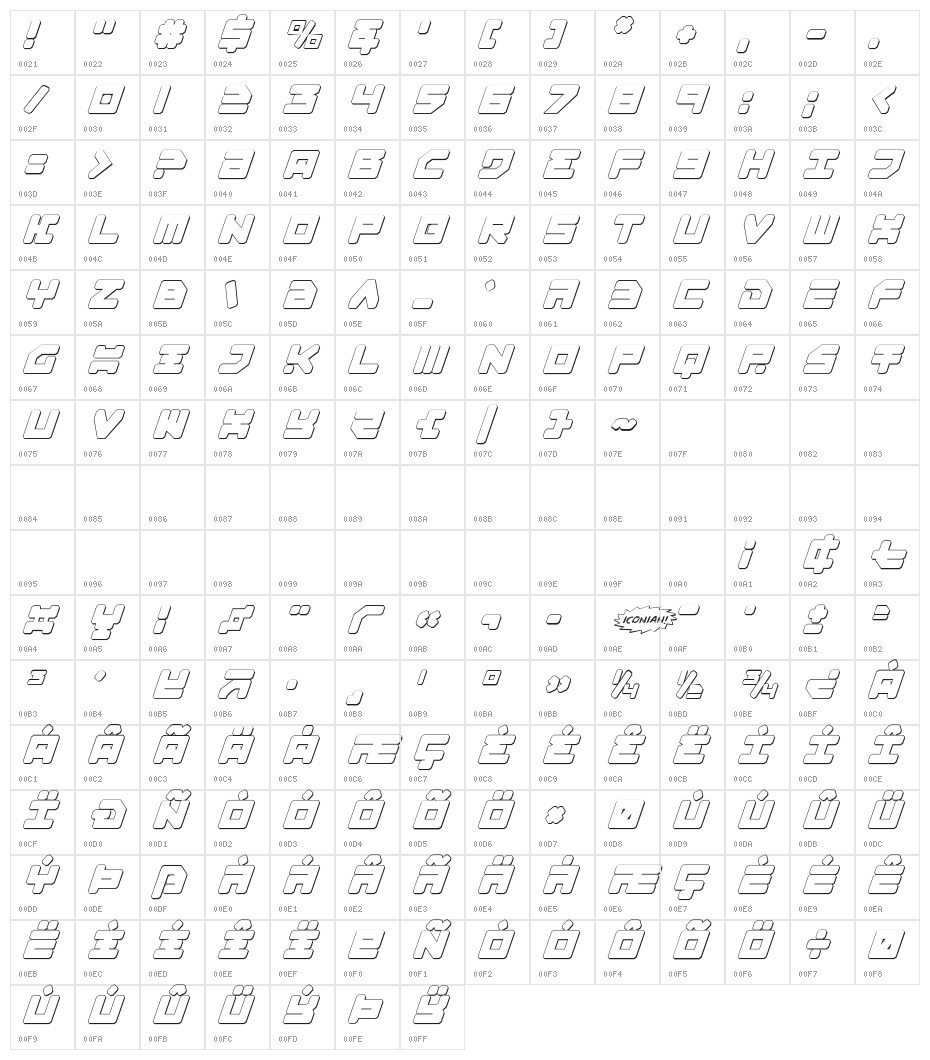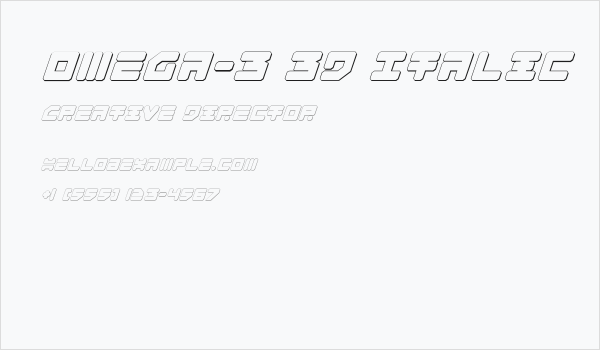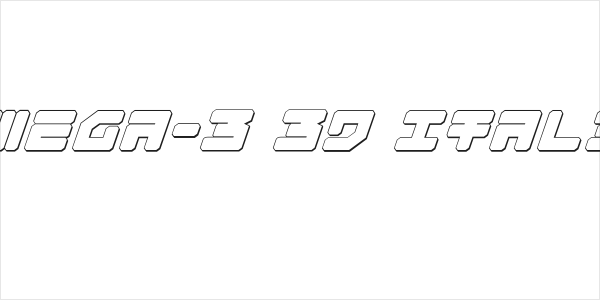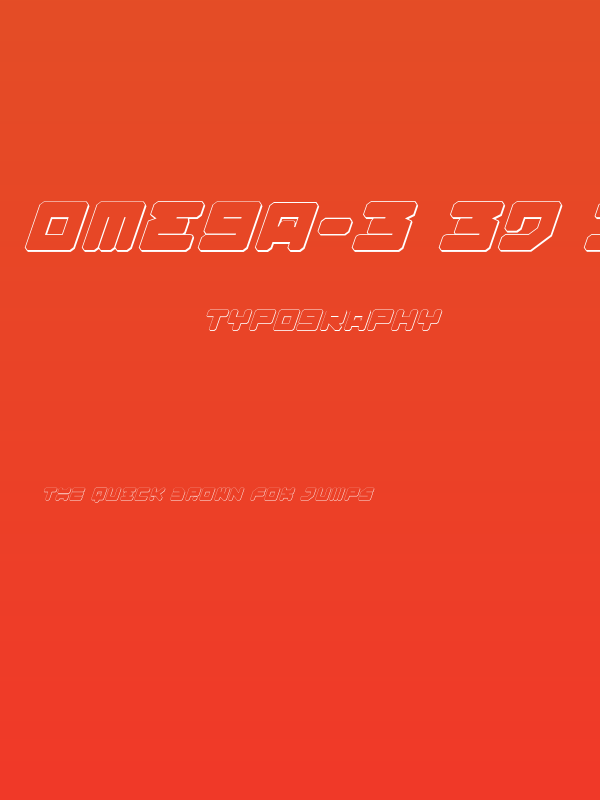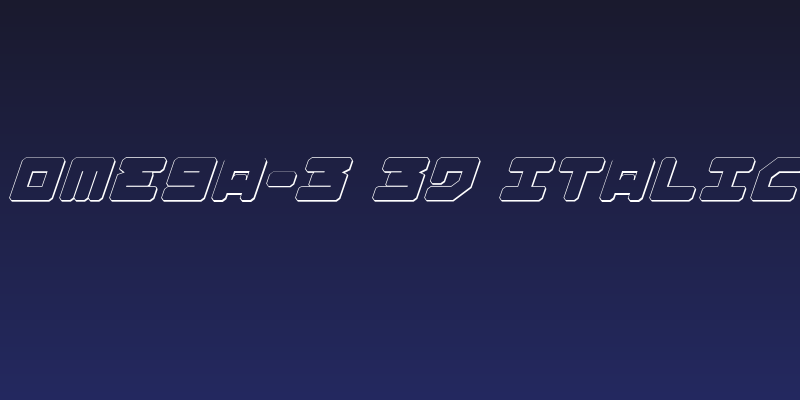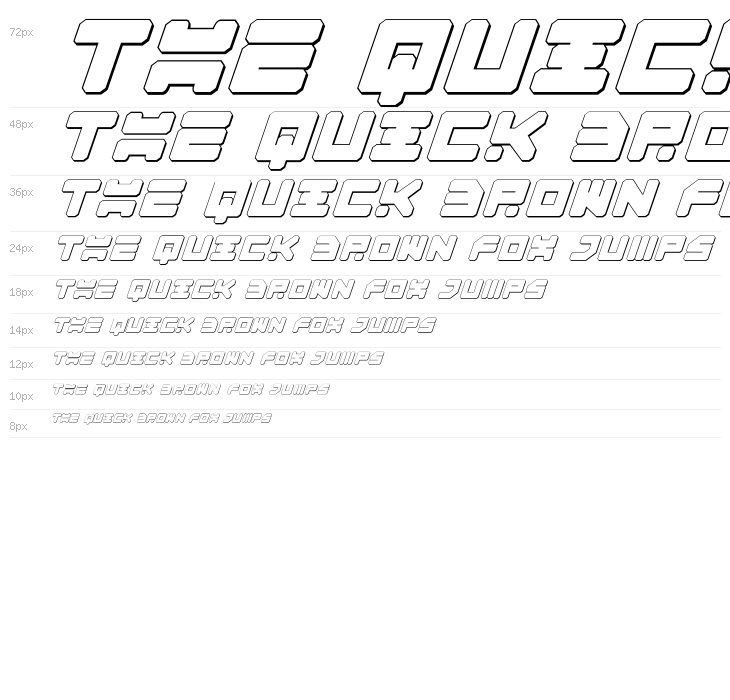
Omega-3 3D Italic Font
Omega-3 3D Italic Description
This font features a bold, futuristic design with a three-dimensional effect that gives it a dynamic and modern appearance. The characters are outlined, creating a hollow look that enhances the 3D illusion. Each letter and number is constructed with angular, geometric shapes, contributing to a sense of movement and energy. The italic slant adds to its forward-looking style, making it ideal for projects that require a sense of speed or innovation. The font maintains consistent spacing and alignment, ensuring readability despite its unique design. Special characters are included, maintaining the same stylistic elements as the alphanumeric characters.
| Proposed Projects | Ideal for technology branding, sci-fi themed projects, video game titles, and futuristic posters. |